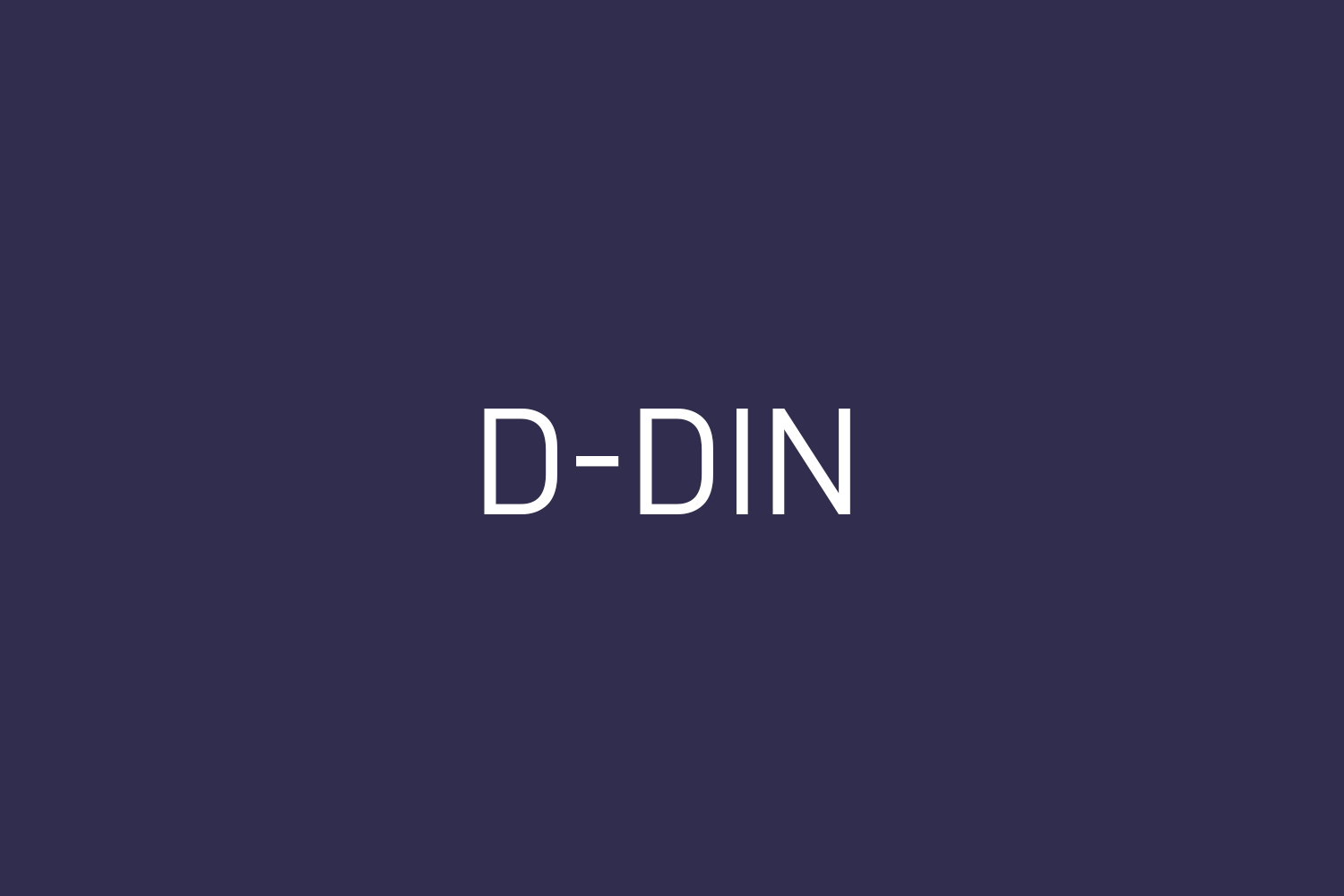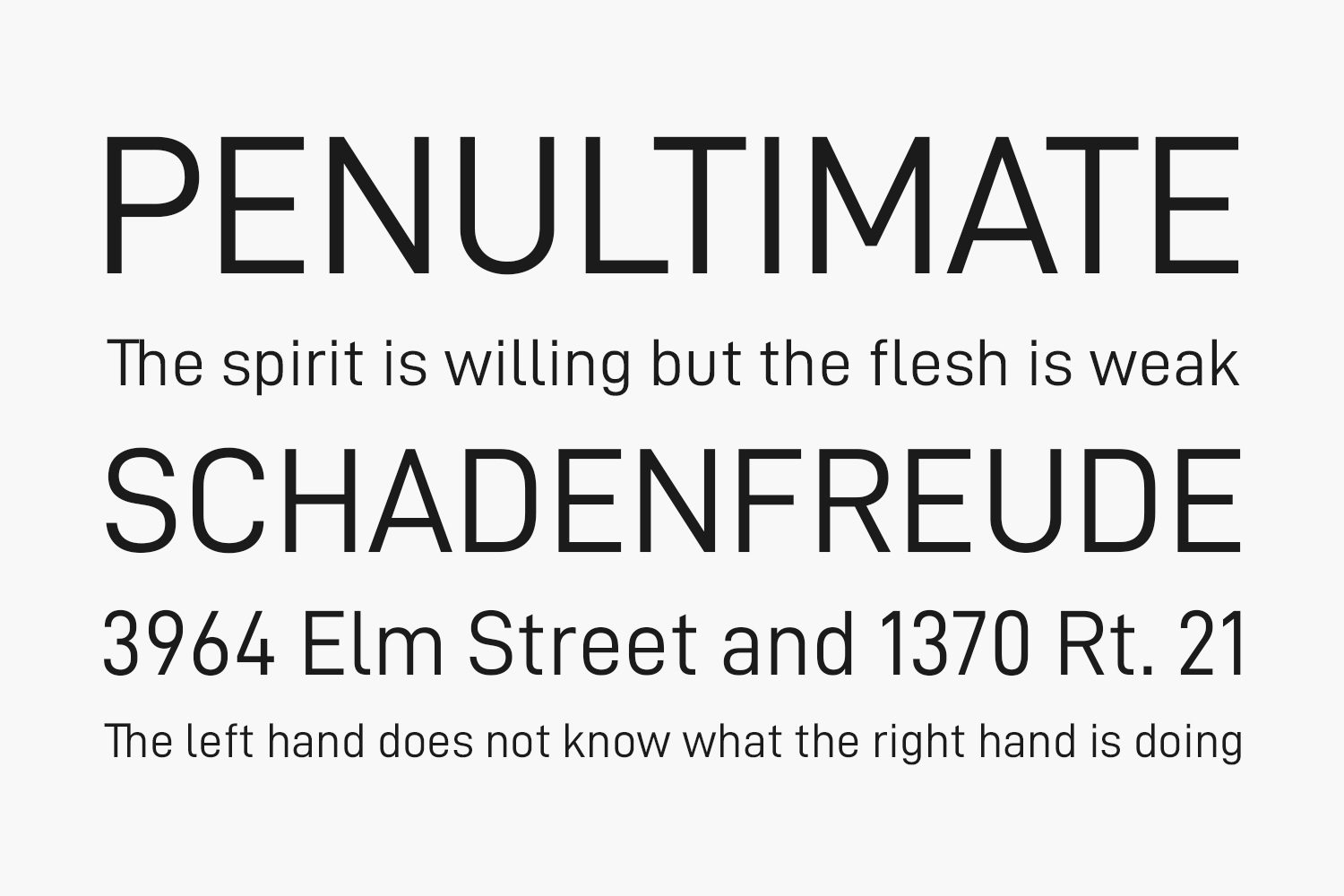
D-DIN Free Font Family is a sans-serif typeface that is widely used for traffic, administrative and technical applications. It was defined by the German
standards body DIN – Deutsches Institut fur Normung (German Institute for Standardization) in the standard sheet DIN 1451-Schriften (typefaces) in 1931. Similar standards existed for stenciled letters. Originally designed for industrial uses, the first DIN-type fonts were a simplified design that could be applied with limited technical difficulty.
Due to the design’s legibility and uncomplicated, unadorned design, it has become popular for general purpose use in signage and display adaptations. Many adaptations and expansions of the original design have been released digitally.